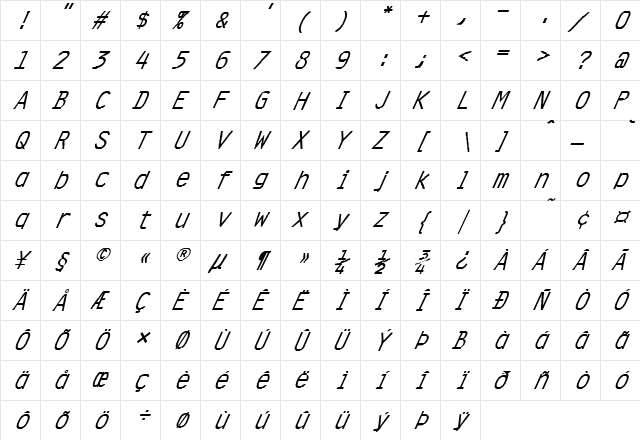
FZ DIGITAL 4 ITALIC Normal
Design Context for FZ DIGITAL 4 ITALIC Typeface
FZ DIGITAL 4 ITALIC channels digital-age aesthetics through its sharp, structured letterforms — ideal for brands that want to signal innovation. The dynamic lean of this cut emphasises speed and emphasis in any layout.
Pro Tip: Use FZ DIGITAL 4 ITALIC in combination with a neutral sans for body text. Let it define the brand voice in headlines while keeping reading comfortable elsewhere.